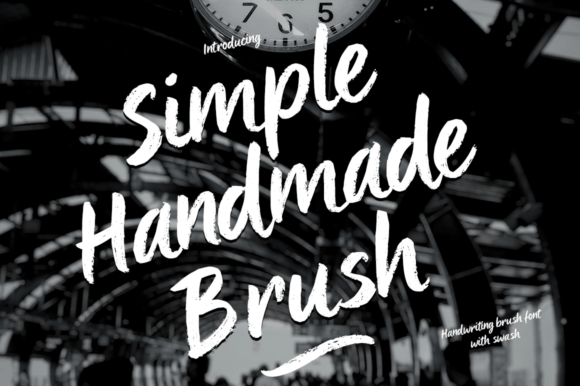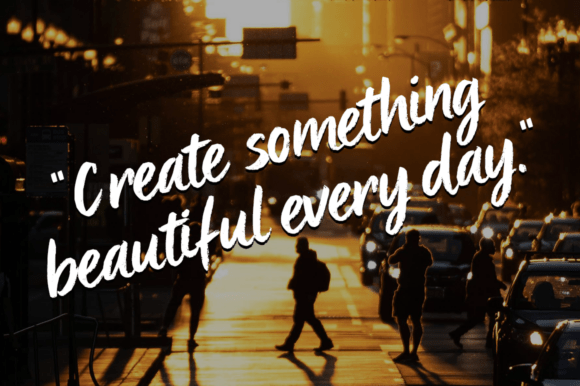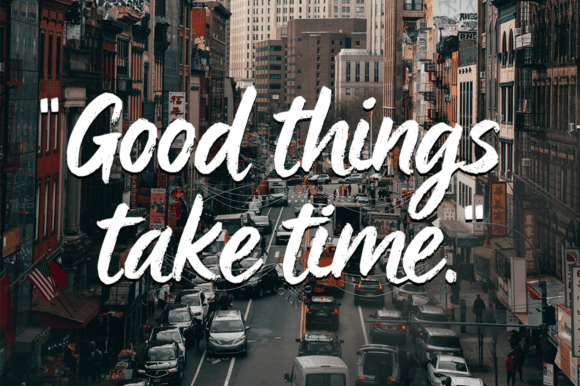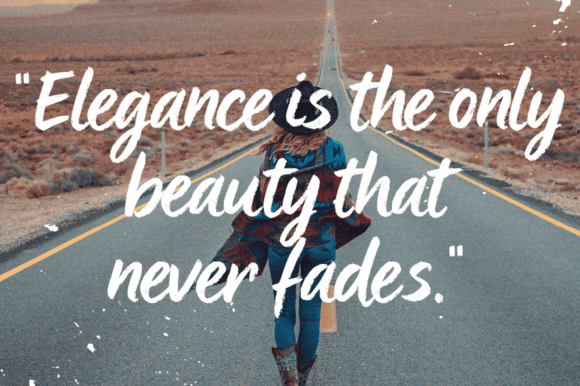
Simple Handmade Font
About the Simple Handmade Font
Unleash your creativity with Simple Handmade Font, a versatile font perfect for a wide range of applications. Experience the bold spirit of Rushline Script, a font that truly stands apart with its powerful handmade brush strokes and stylish swashes. Skillfully crafted with an artistic touch and true natural feel, Rushline Script is a testament to expressive typography. This font effortlessly transforms your projects, making it the ideal choice for distinctive logos, attention-grabbing posters, memorable branding efforts, and all creative expressions seeking that personal, artistic flair. With Rushline Script, watch your ideas come alive and your designs stand out, imbuing them with personality and charismatic allure.
Simple Handmade Font Usage Examples
Simple Handmade Font Example